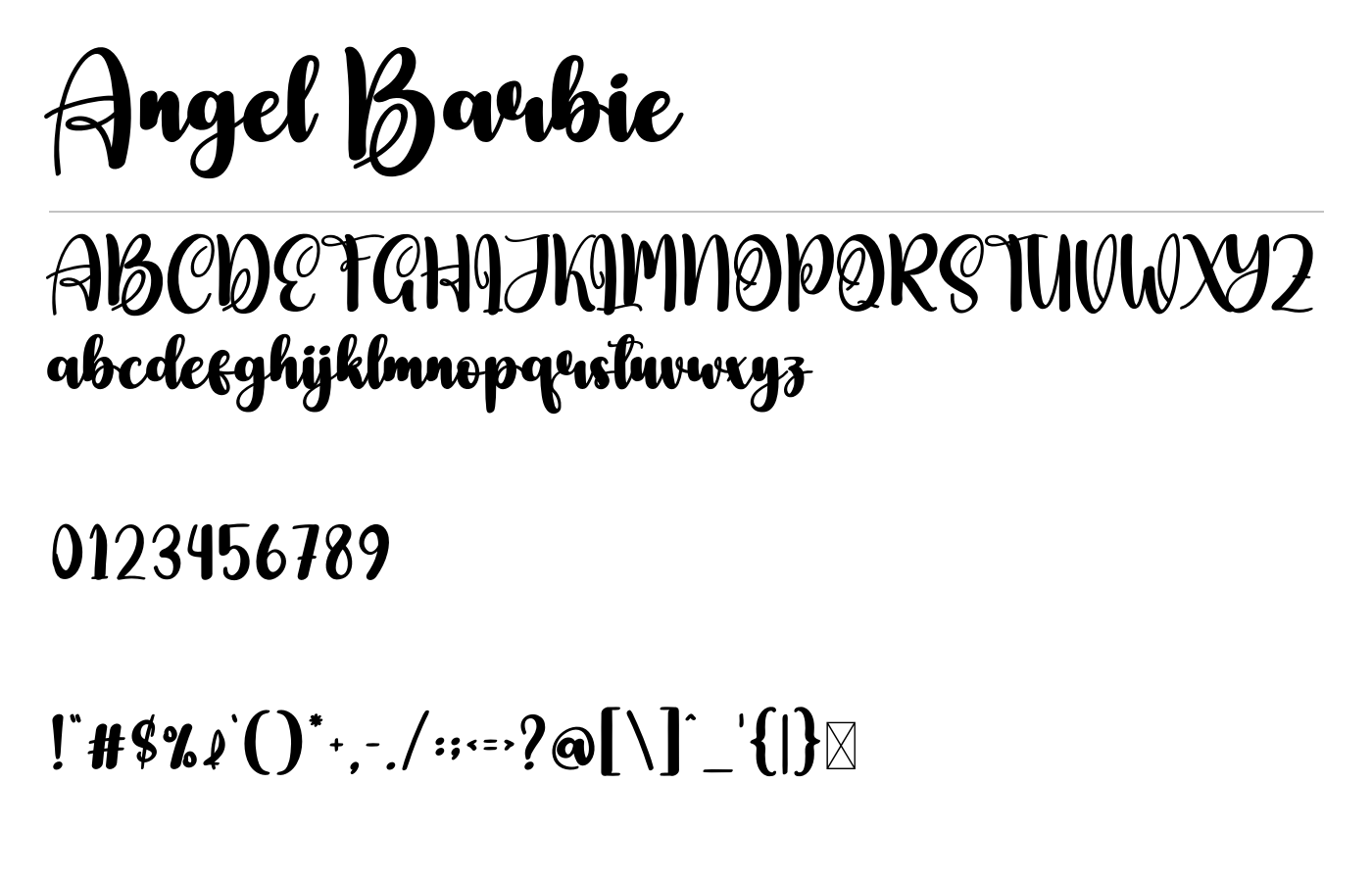
Angel Barbie Font is a playful and whimsical script typeface with bold, rounded strokes and charming swirls that add a touch of flair to each letter. Its thick weight and lively curves make it ideal for creative, fun, and feminine designs, perfect for logos, invitations, and branding that needs a joyful and personable feel. This font works best in headlines and decorative uses where an eye-catching, stylish vibe is desired.
Angel Barbie Font
About Angel Barbie Font